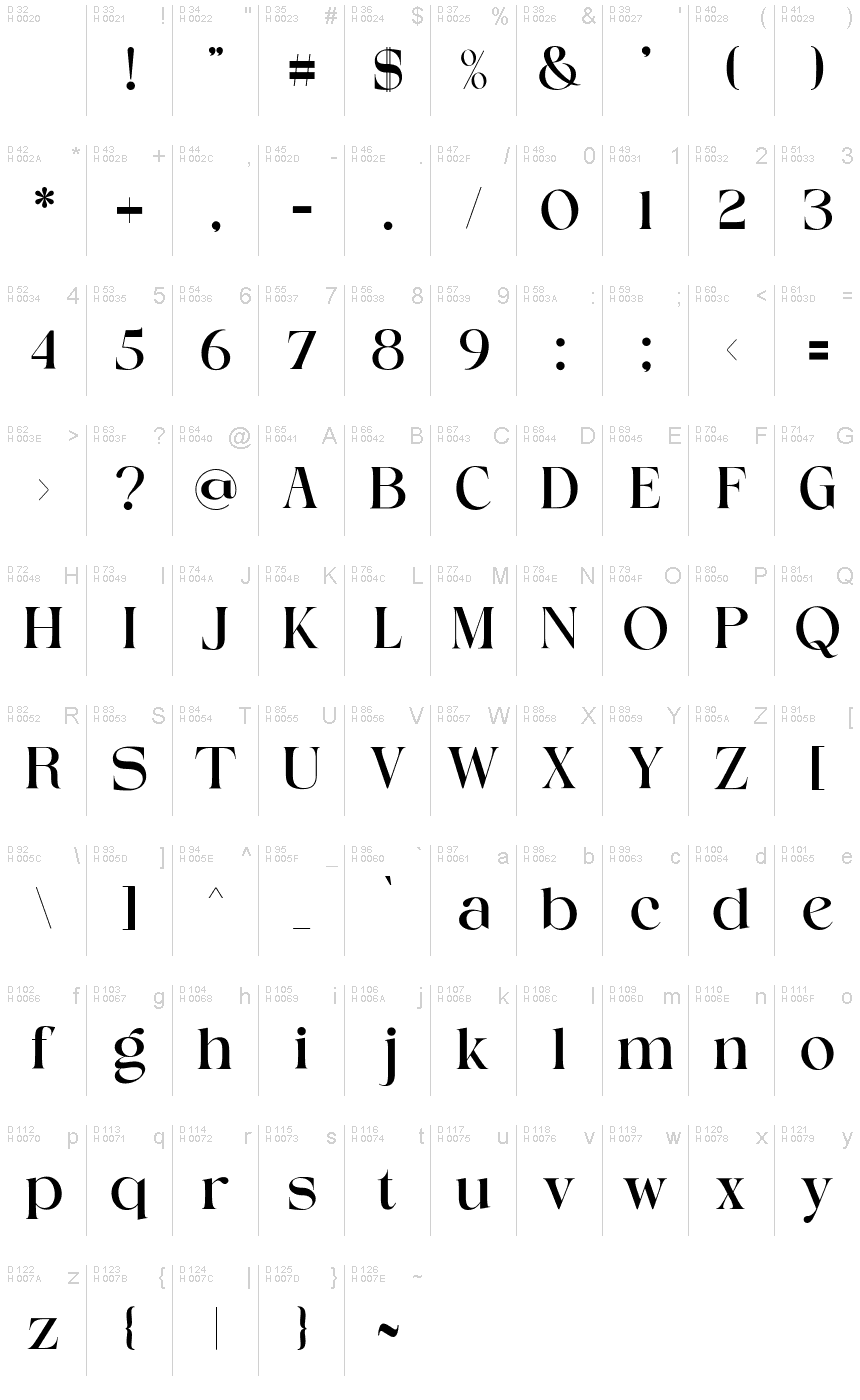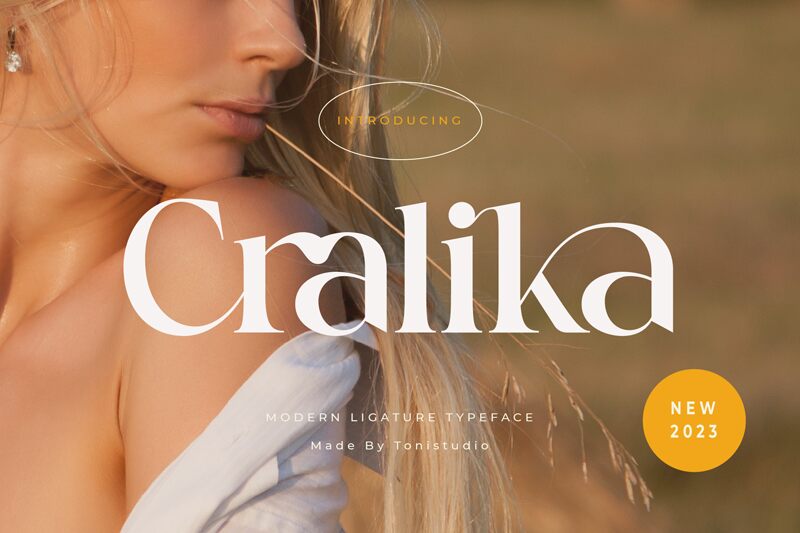
Cralika
Cralika, designed by ToniStudio, embodies a modern twist on the classic serif style. With its crisp lines and elegant curves, this font exudes a sophisticated charm that is both visually striking and highly readable. The unique characteristics of Cralika lie in its delicate balance between traditional serifs and contemporary flair, making it an ideal choice for a wide range of creative endeavors.
The aesthetic appeal of Cralika is undeniable; its bold strokes command attention while the serifs add a touch of finesse that enhances any text. Visually, this font stands out with its distinctive letterforms that offer a fresh take on timeless design principles.
Perfect for branding, editorial work, or any project requiring a dash of elegance and clarity, Cralika's versatility shines through whether displayed on digital screens or printed materials. Its clean lines maintain legibility at various sizes, ensuring that your message is conveyed with both style and precision.
In summary, Cralika's blend of classic sophistication with modern sensibilities makes it an exceptional choice for designers looking to infuse their projects with character and distinction.
The aesthetic appeal of Cralika is undeniable; its bold strokes command attention while the serifs add a touch of finesse that enhances any text. Visually, this font stands out with its distinctive letterforms that offer a fresh take on timeless design principles.
Perfect for branding, editorial work, or any project requiring a dash of elegance and clarity, Cralika's versatility shines through whether displayed on digital screens or printed materials. Its clean lines maintain legibility at various sizes, ensuring that your message is conveyed with both style and precision.
In summary, Cralika's blend of classic sophistication with modern sensibilities makes it an exceptional choice for designers looking to infuse their projects with character and distinction.